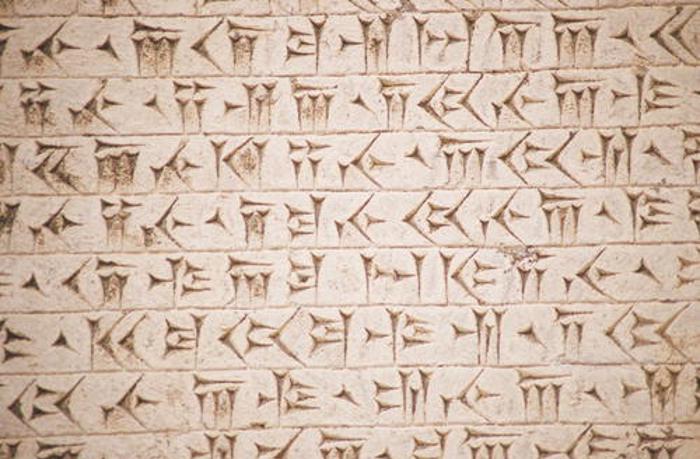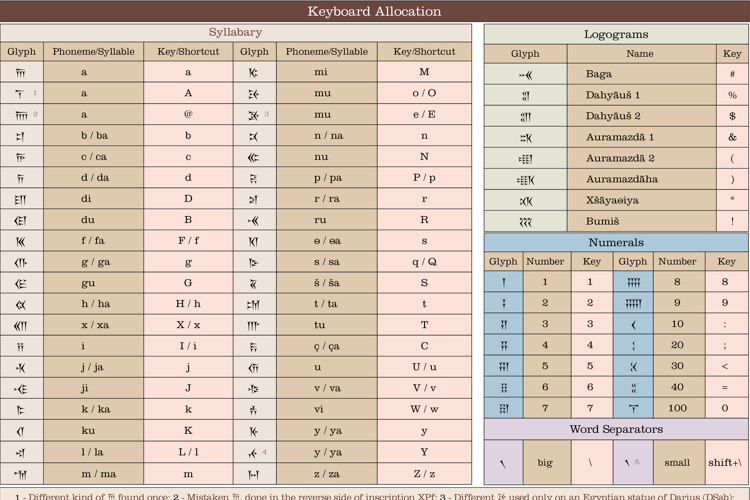
Behistun Font
Developed with the help of Mr. Keyvan Mahmoudi, from the University of Teheran, the glyphs are allocated over very convenient keys, but also works for Unicode. This font includes every known glyph for this ancient inscript. This is a free non-commercial font and should not be selled by any means. For more details on how to use the font, corrections, comissions, permissions or suggestions, contact me: fereydoun23@gmail.com
Wait! Unicode compatible?!!! Fantastic!!!
Thanks for the share. Why put any of them under 'Basic Latin' though, are they not represented in Unicode elsewhere?
@fontspace, because this font is not only to correctly view web pages with texts written in Unicode, but also to easily make transcriptions of Old Persian texts, typing with a normal keyboards. To make easy that kind of task, we need all the Basic Latin slots. I have done this fonts with the consultation and orientation of an Iranian epigrapher, who presented me all his necessities and asked me how to make it to make the font the most useful and effective to his transcription works.
However, the font is not only for scholars, but also for a number of graphic works, as a decorative element or even as real Old Persian phrases. Anyone could learn how to write such words or phrases, by just learning a bit of the language. My intention was not to make it like fonts as Carbolith font (by Apostrophic Labs), because we already have many of them. Do you have any objections? I am open to suggestions. Thanks for asking.
how are you? We have already talked about your question, but I will let a reply here as well, so others with similar doubts could read. Interesting question! Thanks for that. First, would be great if we could find the Old Persian version of the name "Negar", but that is almost impossible. Maybe that name is too modern. Per examples, we know that the ancient version of the name "Shadi" was "Shiyatim", the name "Daryoush" was "Drayavaush" and we also know that the modern "Khourosh" was "Kurus", in the past. So, with that information in our hands, we can use Old Persian Cuneiform to write a name (or word) exactly the way it was. However, with transliteration, we can write anything in Old Persian Cuneiform, even not Persian words. All we have to do is to choose the best way to express the phonemes.
This is the best Old Persian Cuneiform font available! Every single glyph! Even the rare ones! Thank you so much for making it free! Why should we buy a ugly one, if we can get this perfect one free?!